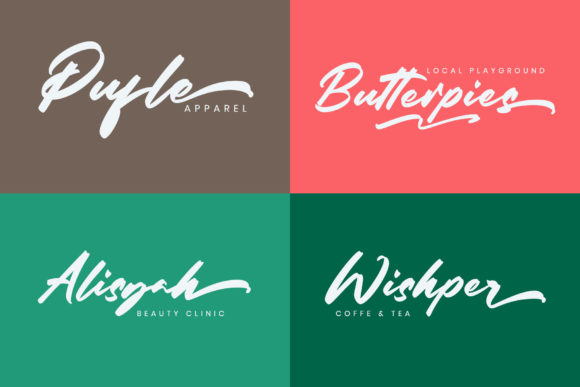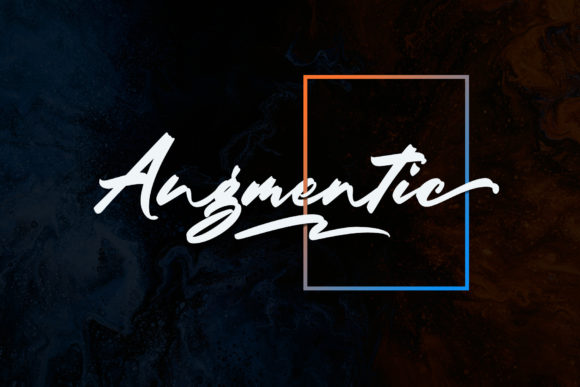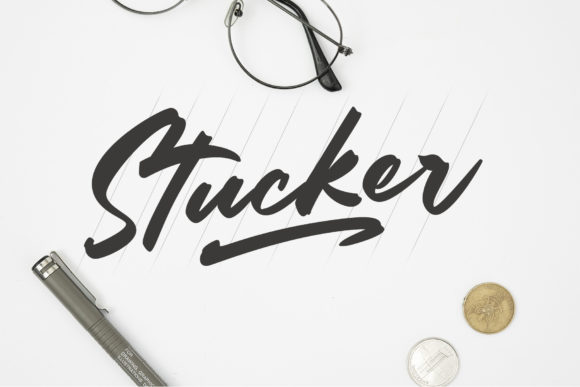
Introduction to Rhytles Font
Rhytles is a cool and brushed handwritten font.
It looks stunning on wedding invitations, thank you cards, quotes, greeting cards, logos, business cards and every other design which needs a customized touch .
Key Features of Rhytles Font
Rhytles Font offers exceptional quality and versatility, making it a valuable addition to your design toolkit. Whether you’re creating for personal projects or commercial use, Rhytles Font delivers professional results.